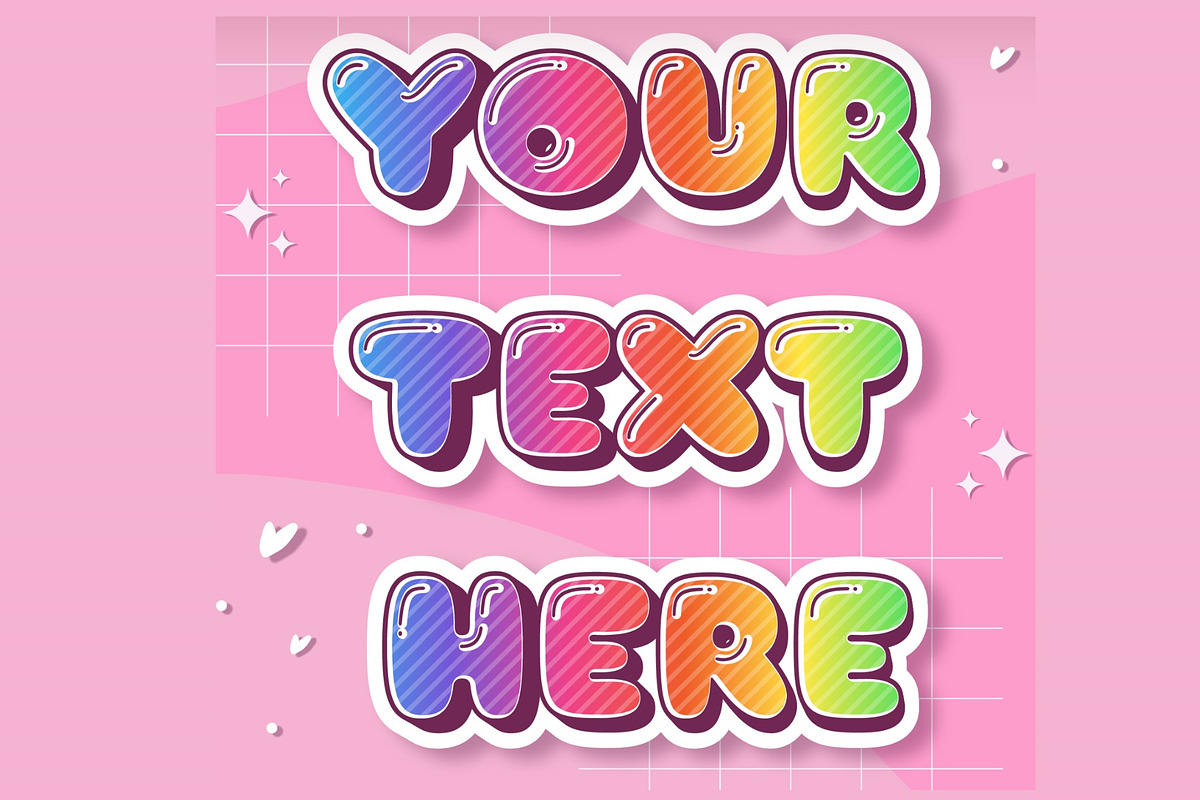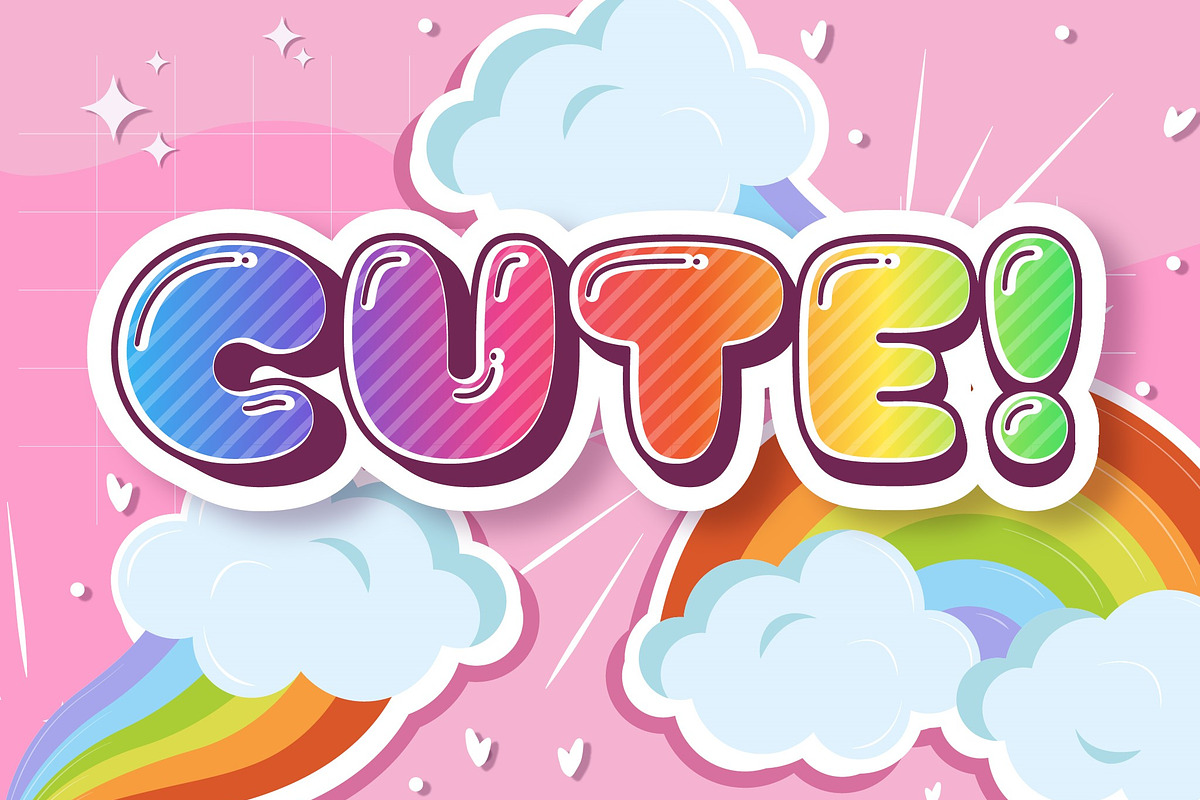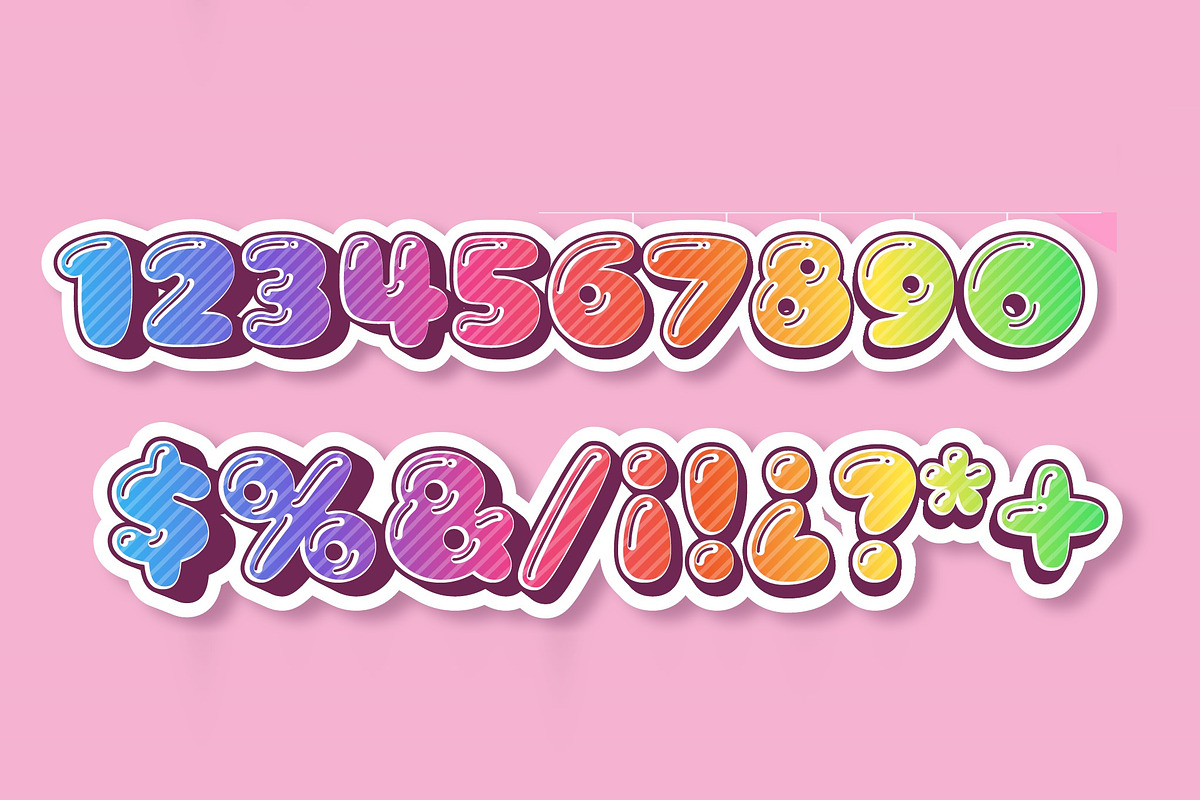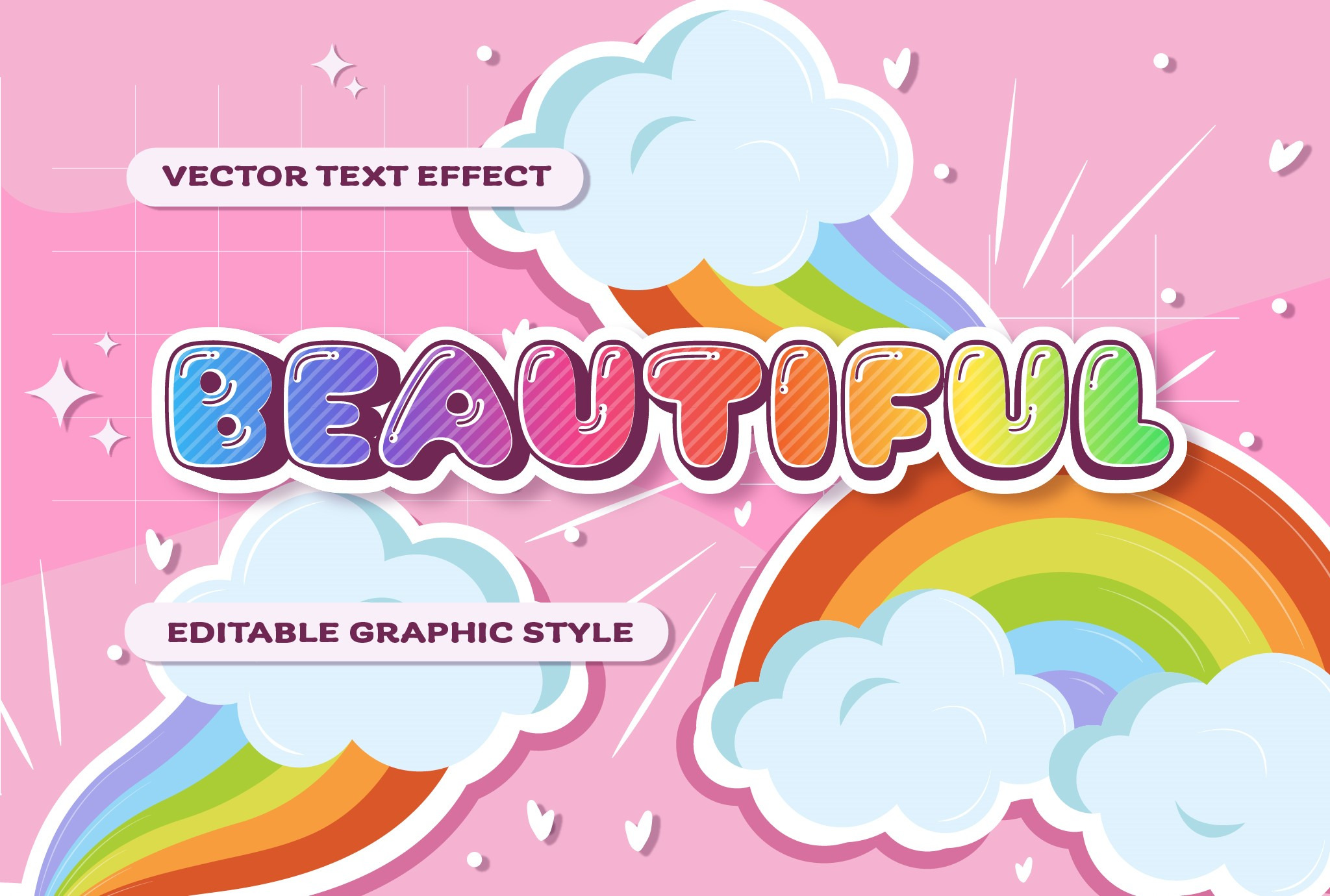
Gradient Text Effect Kawaii Font
Add a fun and colorful touch to your designs with this rainbow and gradient text effect kawaii script font effect. This AIT file features vibrant gradient lettering, outlined stickers, and well-organized layers for easy customization. Perfect for cute branding, kids' designs, and playful typography projects.